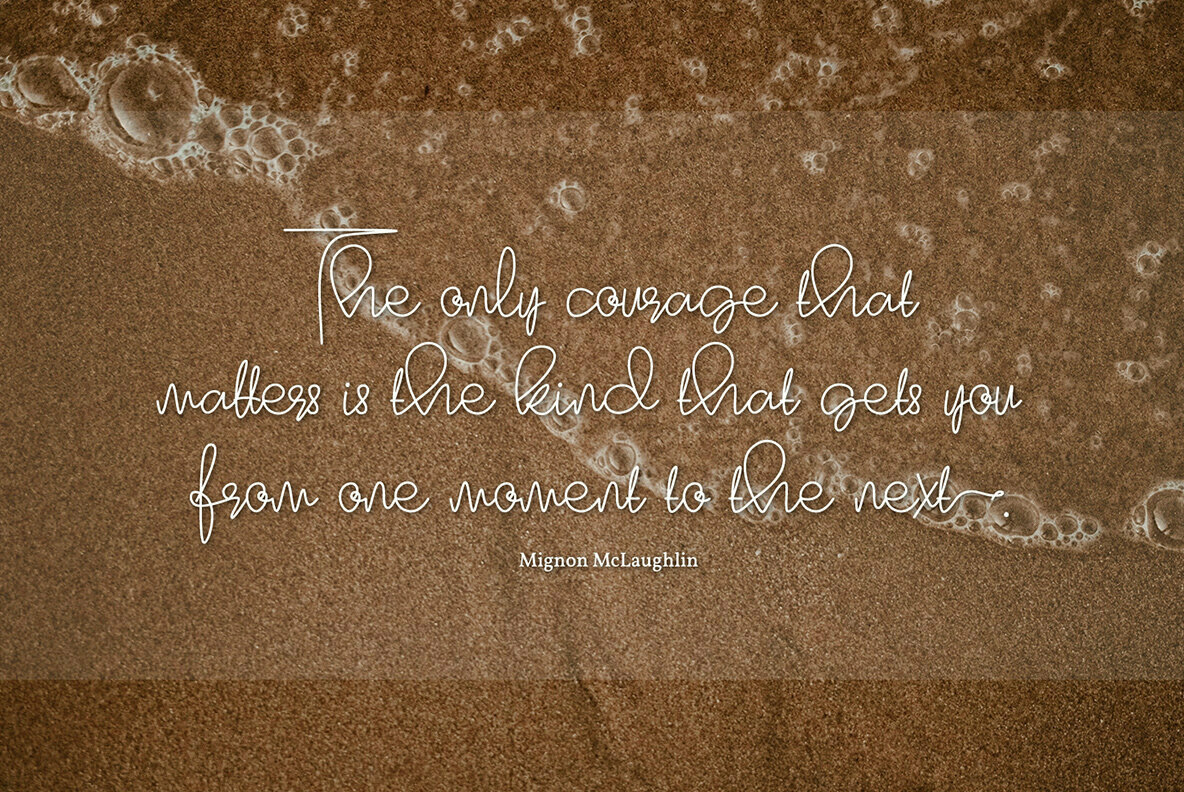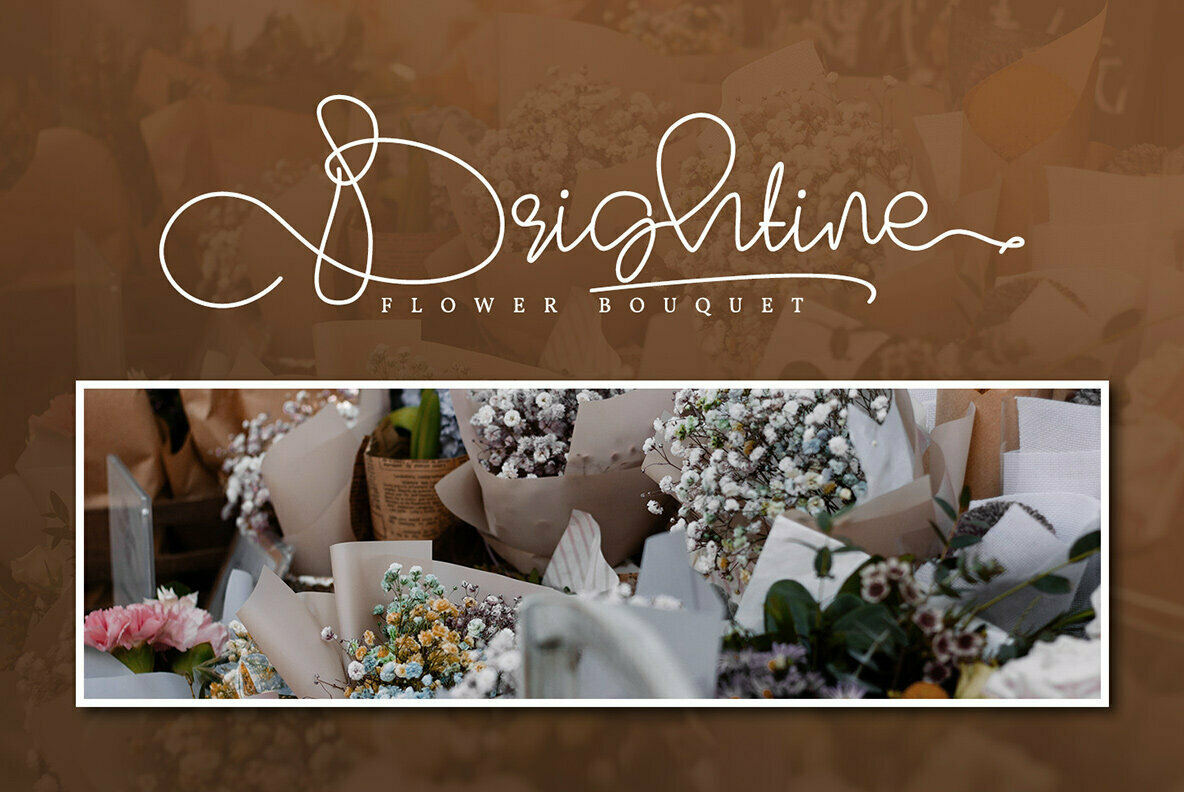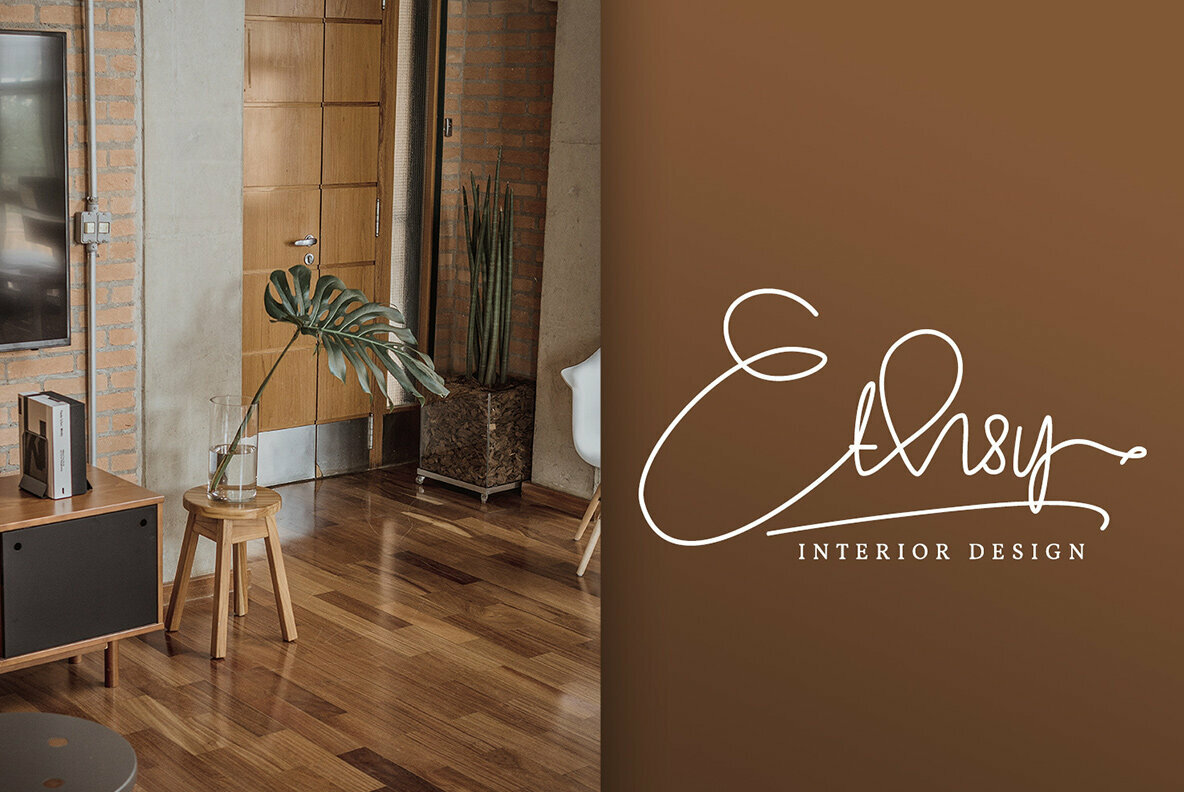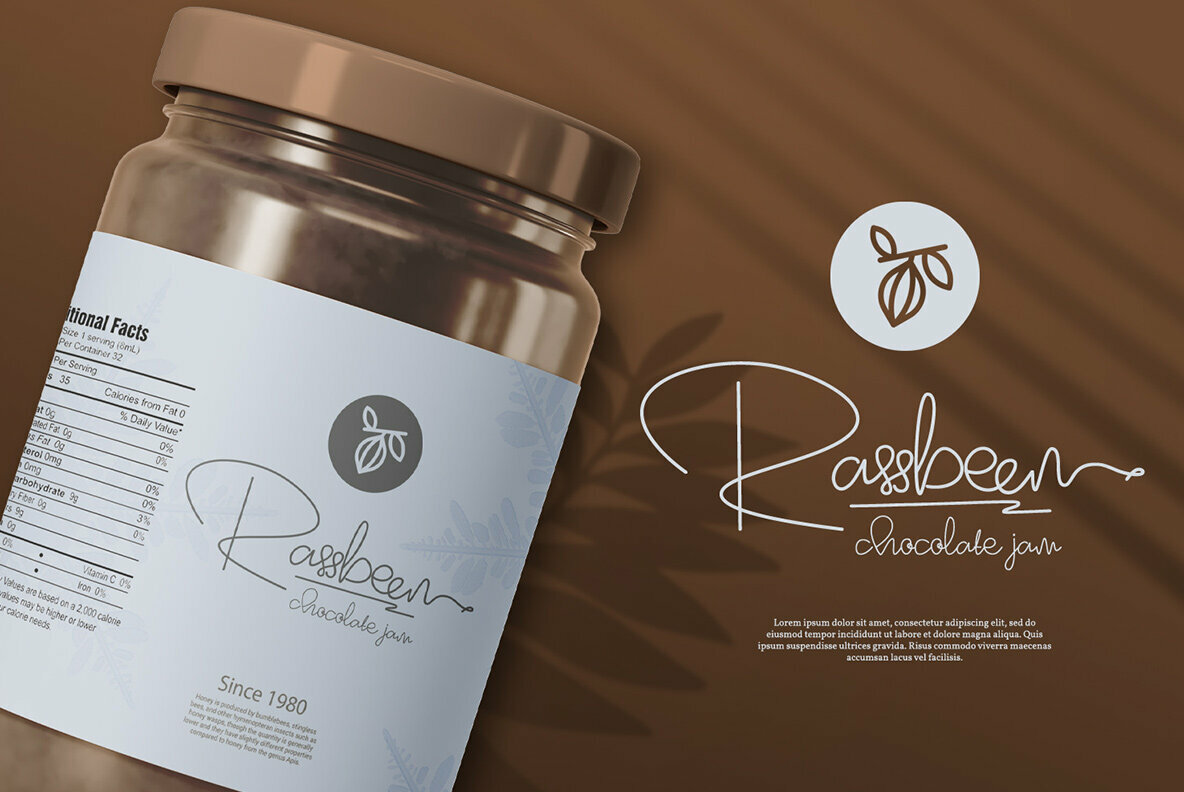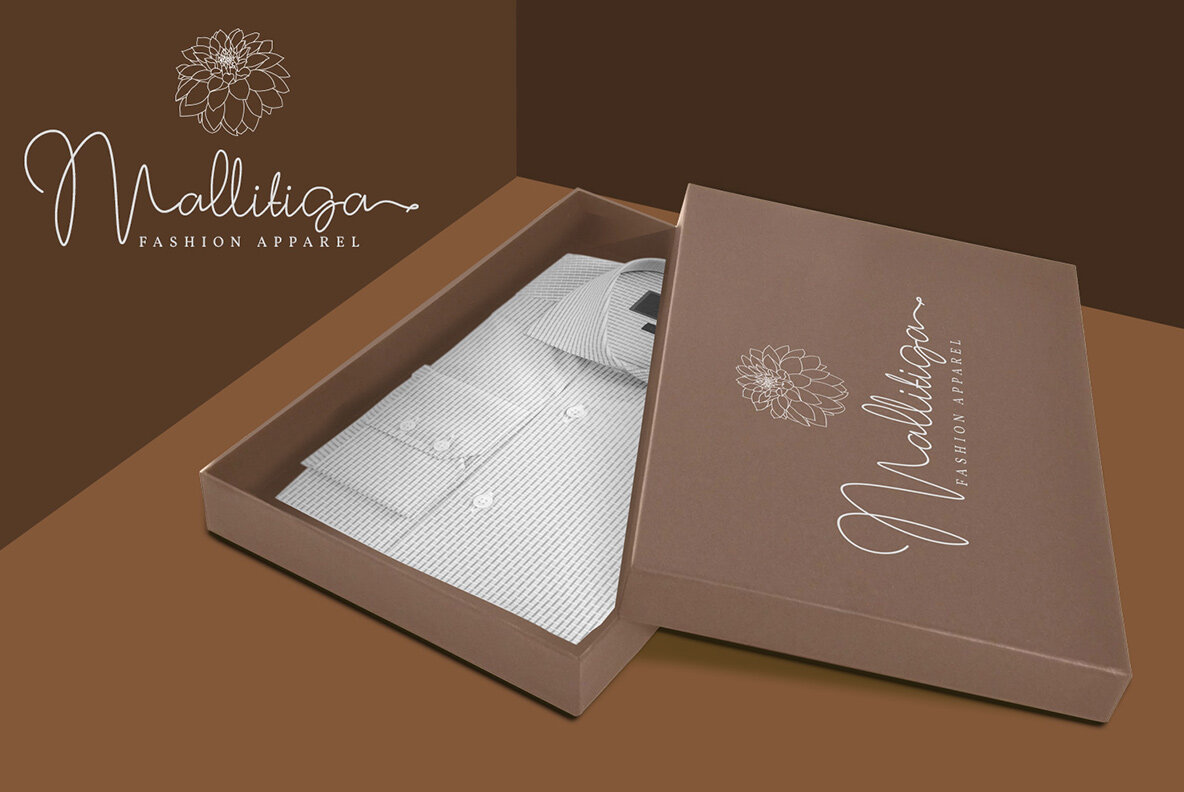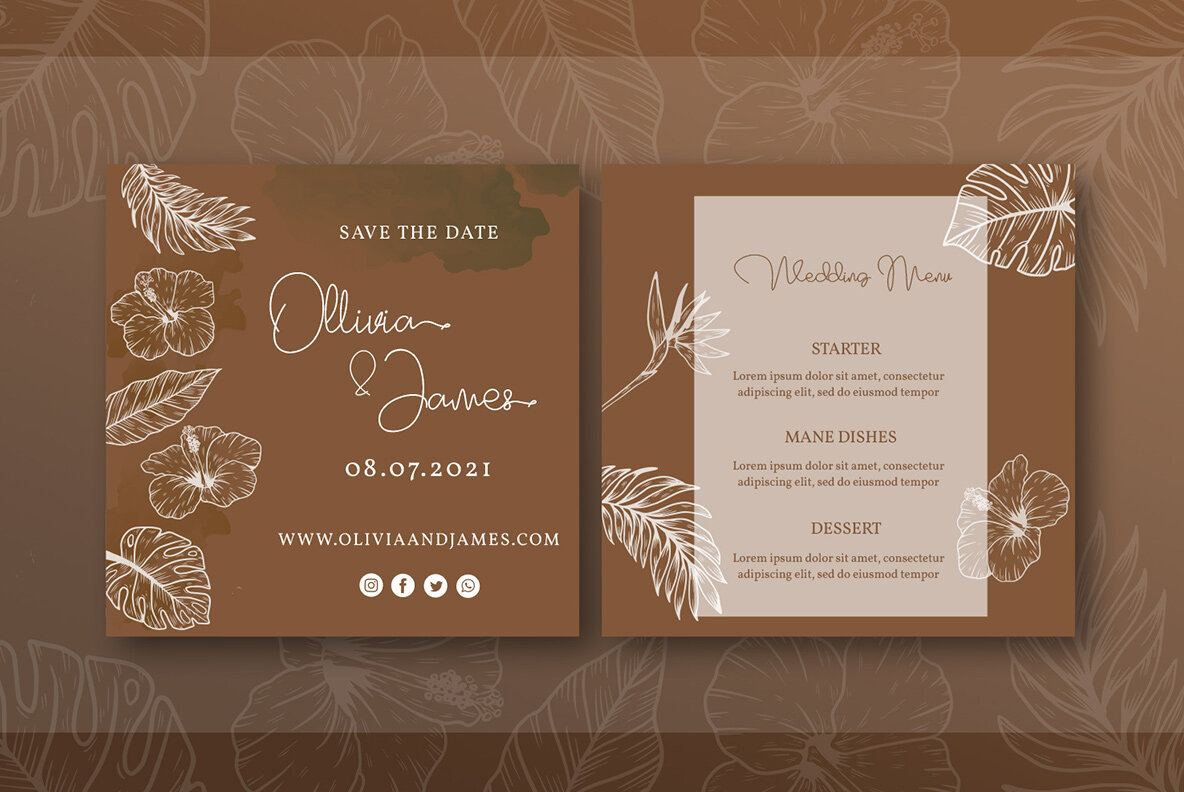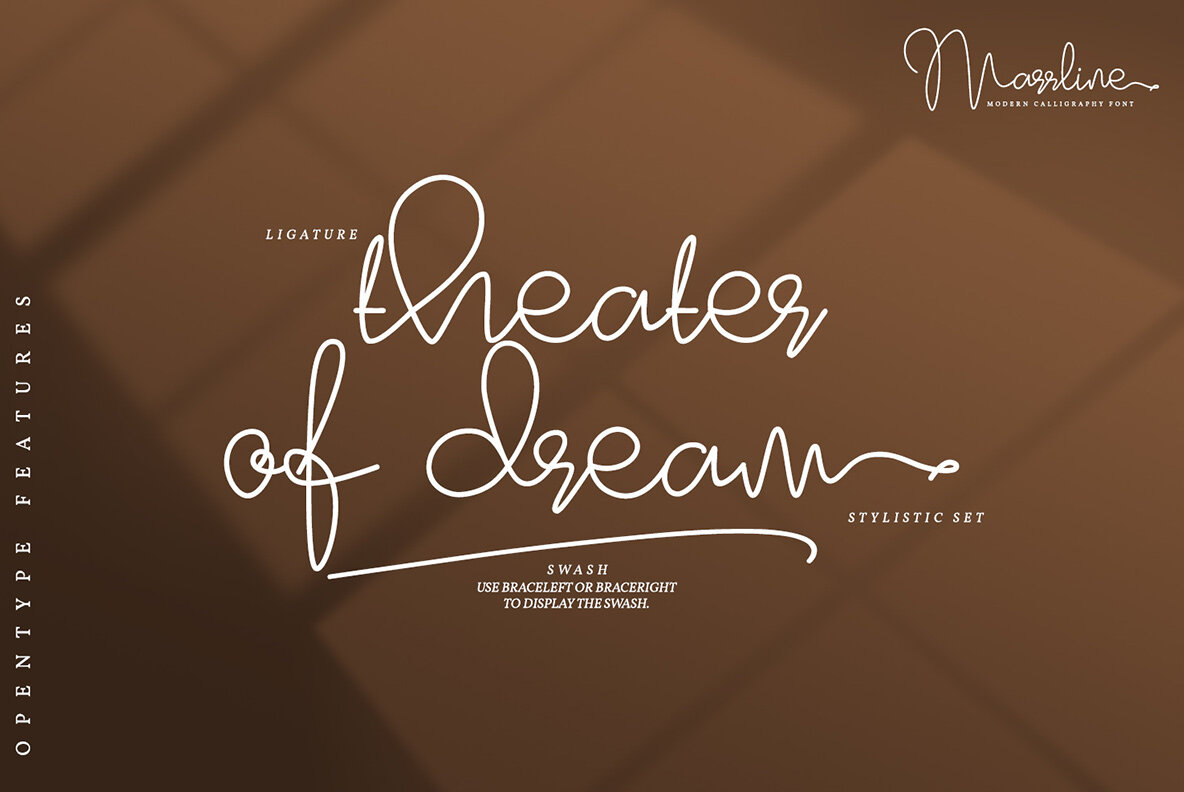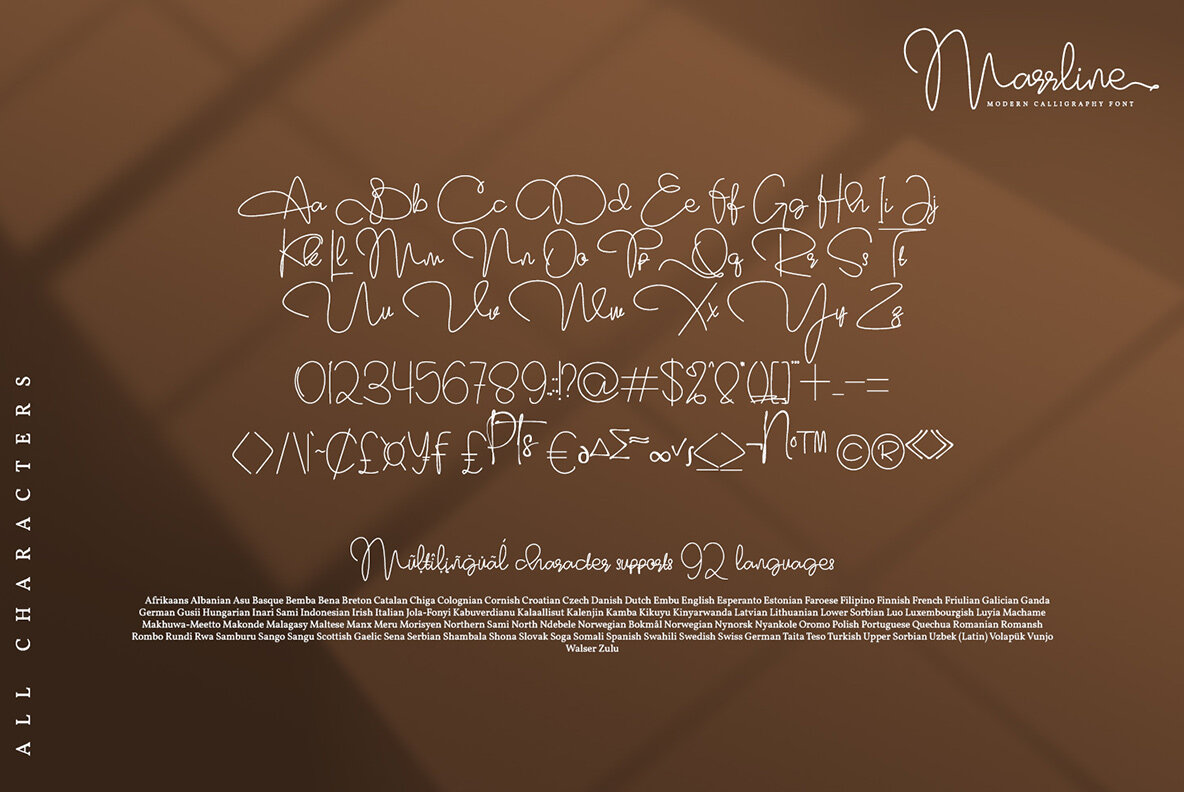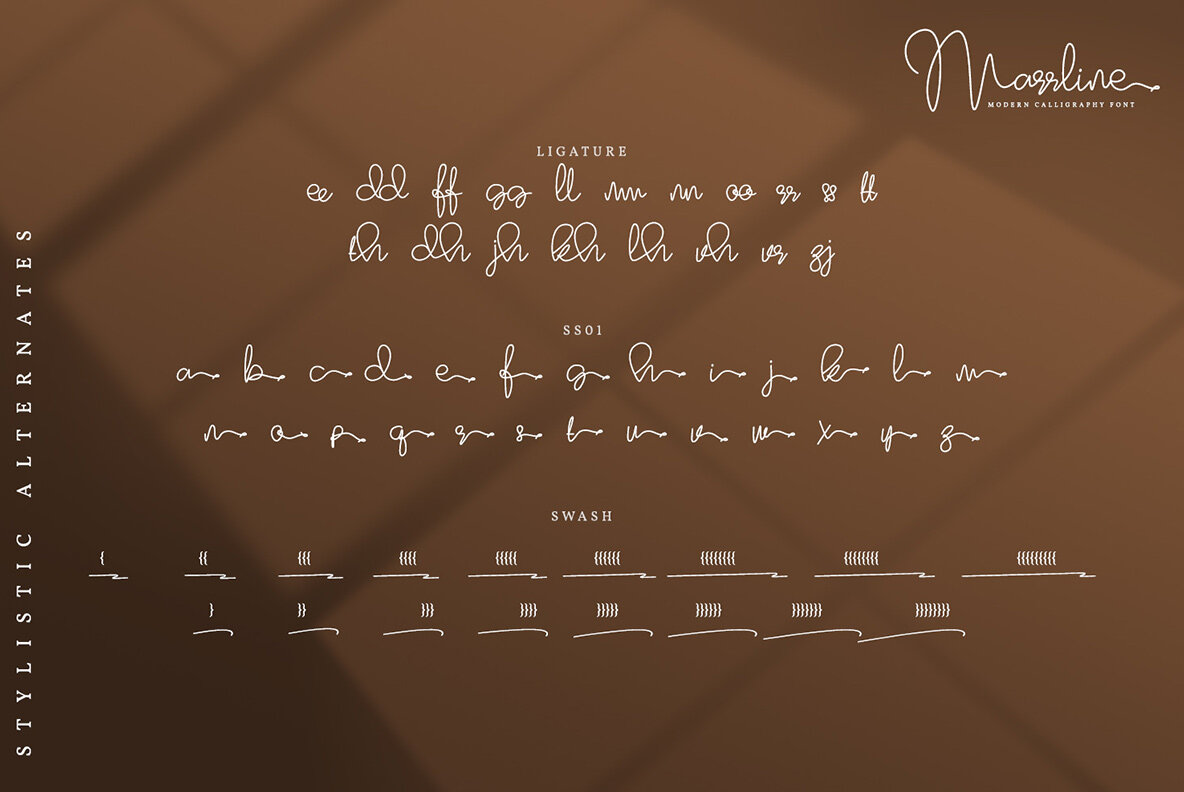
Marrline Font
Marrline
Marrline stands out as a modern calligraphy font, known for its beauty and allure. This typeface is particularly well-suited for professionals in search of an elegant option for their branding needs. Whether for logos, wedding invitations, or capturing meaningful quotes, Marrline seamlessly adapts to various creative projects.Marrline: Modern Calligraphy for Elegant Branding